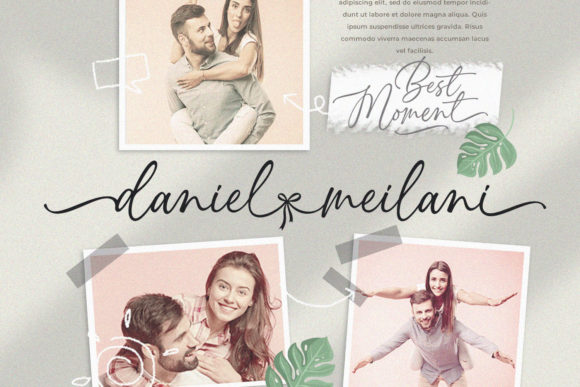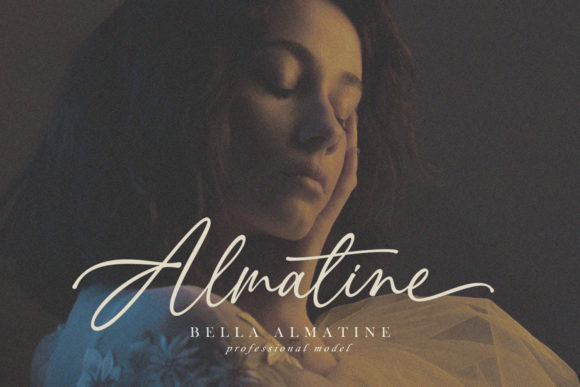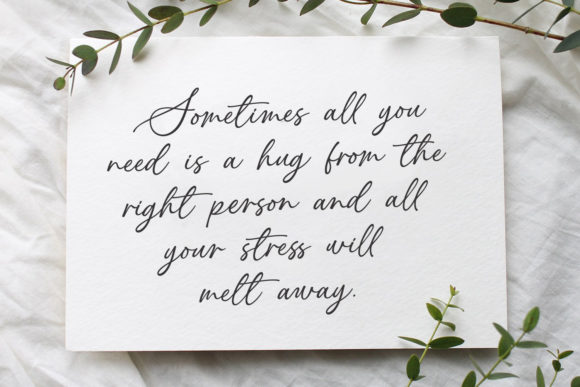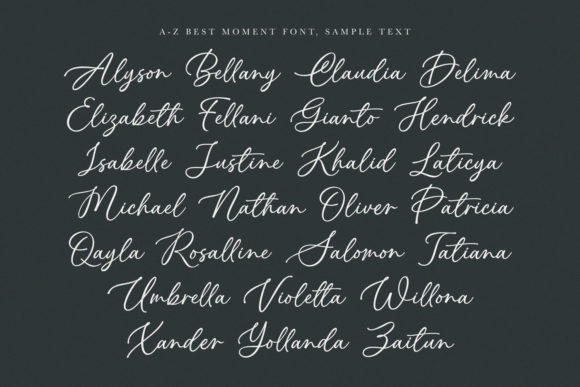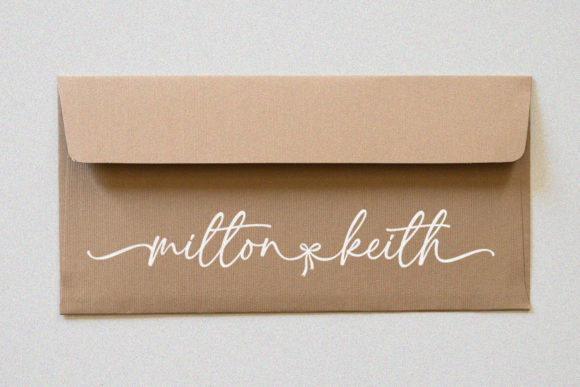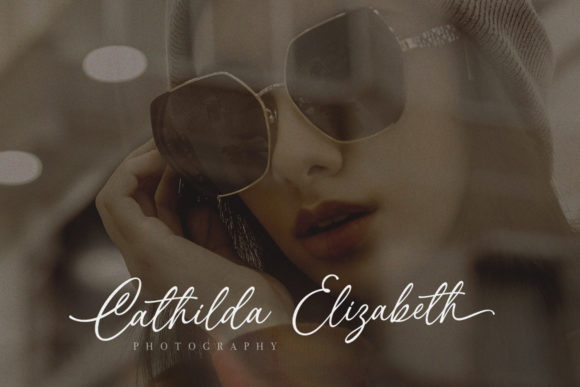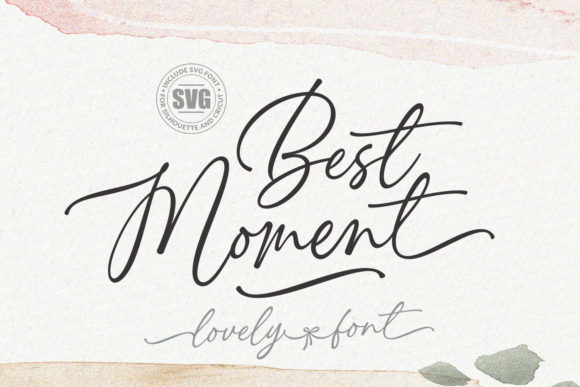
Introducing Best Moment Font: The Perfect Handwritten Script to Cherish Life’s Precious Moments
Are you a designer, crafter, or simply someone who loves to add a personal touch to your creations? Look no further! We’re excited to introduce the Best Moment Font, a warm and inviting script font that will make you reminisce about the best moments of your life. This beautiful handwritten font is perfect for decorating photos, signing letters, and adding a touch of elegance to your projects.
What Makes Best Moment Font Special?
Best Moment Font is a unique and versatile script font that stands out from the rest. Its warm and inviting tone makes it perfect for a wide range of projects, from scrapbooking and journaling to branding and advertising. The font’s handwritten style gives it a personal and organic feel, making it ideal for adding a touch of whimsy and charm to your designs.
One of the best things about Best Moment Font is its ease of use. Whether you’re a seasoned designer or a beginner, this font is easy to work with and can be used to create stunning projects in no time. The font is also highly legible, making it perfect for use in body text, headings, and titles.
Uses for Best Moment Font
Best Moment Font is incredibly versatile and can be used for a wide range of projects, including:
- Scrapbooking: Add a personal touch to your scrapbook pages with Best Moment Font. Use it to journal about your favorite memories, or to add captions to your photos.
- Journaling: Use Best Moment Font to add a touch of elegance to your journal pages. Write down your thoughts, goals, and dreams in style.
- Branding: Best Moment Font is perfect for branding and advertising projects. Use it to create unique and eye-catching logos, business cards, and brochures.
- Wedding Stationery: Make your wedding stationery truly special with Best Moment Font. Use it to create beautiful wedding invitations, save-the-date cards, and thank-you notes.
- DIY Crafts: Best Moment Font is perfect for DIY crafters. Use it to add a personal touch to your handmade cards, gift tags, and other crafts.
Why Choose Best Moment Font?
There are many script fonts available, but Best Moment Font stands out from the rest. Here are just a few reasons why:
- Unique and Handwritten: Best Moment Font is a unique and handwritten script font that will add a touch of personality to your projects.
- Easy to Use: This font is incredibly easy to use, even for beginners.
- Highly Legible: Best Moment Font is highly legible, making it perfect for use in body text, headings, and titles.
- Versatile: This font can be used for a wide range of projects, from scrapbooking and journaling to branding and advertising.
Tips for Using Best Moment Font
Here are a few tips for using Best Moment Font:
- Use it with Photos: Best Moment Font looks beautiful with photos. Use it to add captions to your photos, or to create journal cards.
- Mix and Match: Don’t be afraid to mix and match Best Moment Font with other fonts. This will add visual interest to your projects and make them more dynamic.
- Experiment with Colors: Best Moment Font looks beautiful in a variety of colors. Experiment with different colors to find the one that works best for your project.
Best Moment Font is a beautiful and versatile script font that is perfect for designers, crafters, and anyone who loves to add a personal touch to their creations. With its warm and inviting tone, ease of use, and high legibility, this font is sure to become a favorite. Whether you’re working on a scrapbooking project, journaling, or branding, Best Moment Font is the perfect choice. So why wait? Download Best Moment Font today and start creating stunning projects that will cherish life’s precious moments!